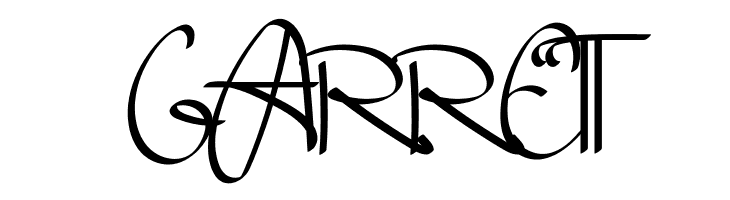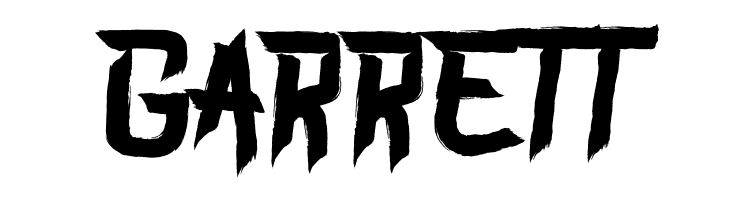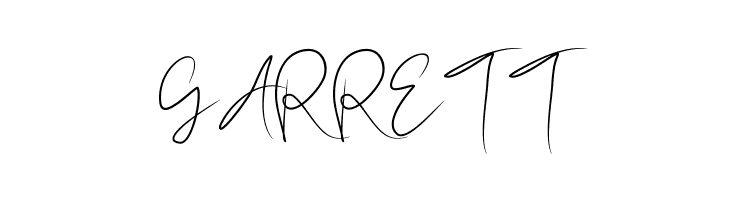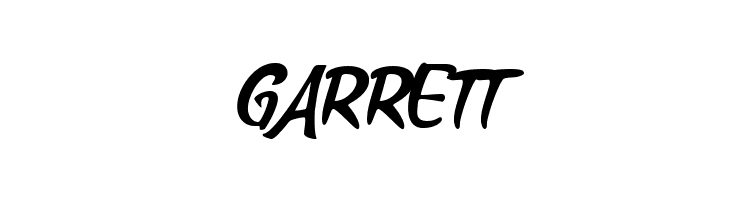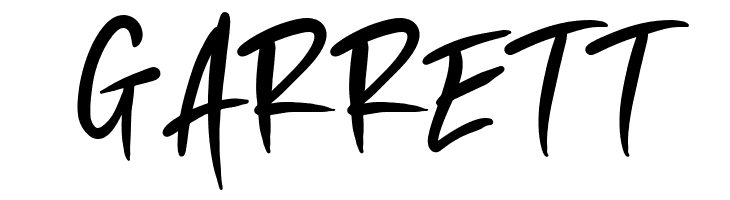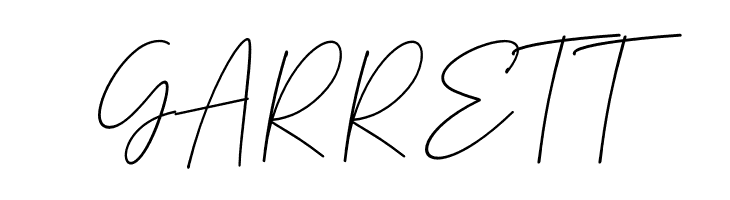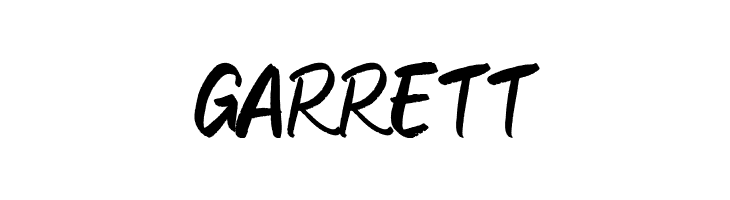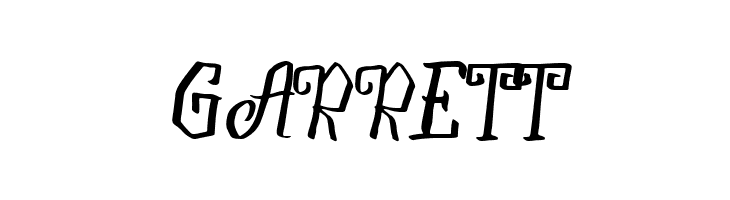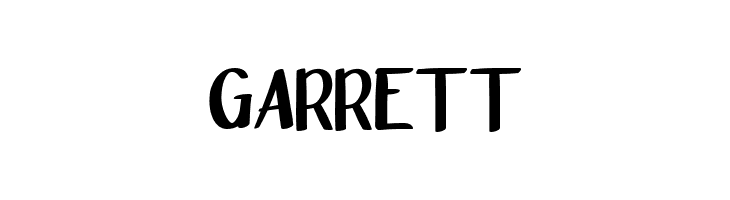
A sophisticated, cursive script font with elegant, flowing strokes.
A bold, dynamic script font with a modern, artistic flair.
A dynamic, expressive font with flowing, cursive-like strokes and unique letterforms.
A bold, brush script font with dynamic and expressive strokes.
A delicate, handwritten font with elegant, flowing strokes and a sophisticated style.
A bold, playful script font with dynamic, flowing characters.
A bold, expressive script font with flowing, cursive letterforms.
A bold, energetic script font with a hand-drawn, dynamic style.
A bold, dynamic handwritten font with fluid strokes and a brush-like texture.